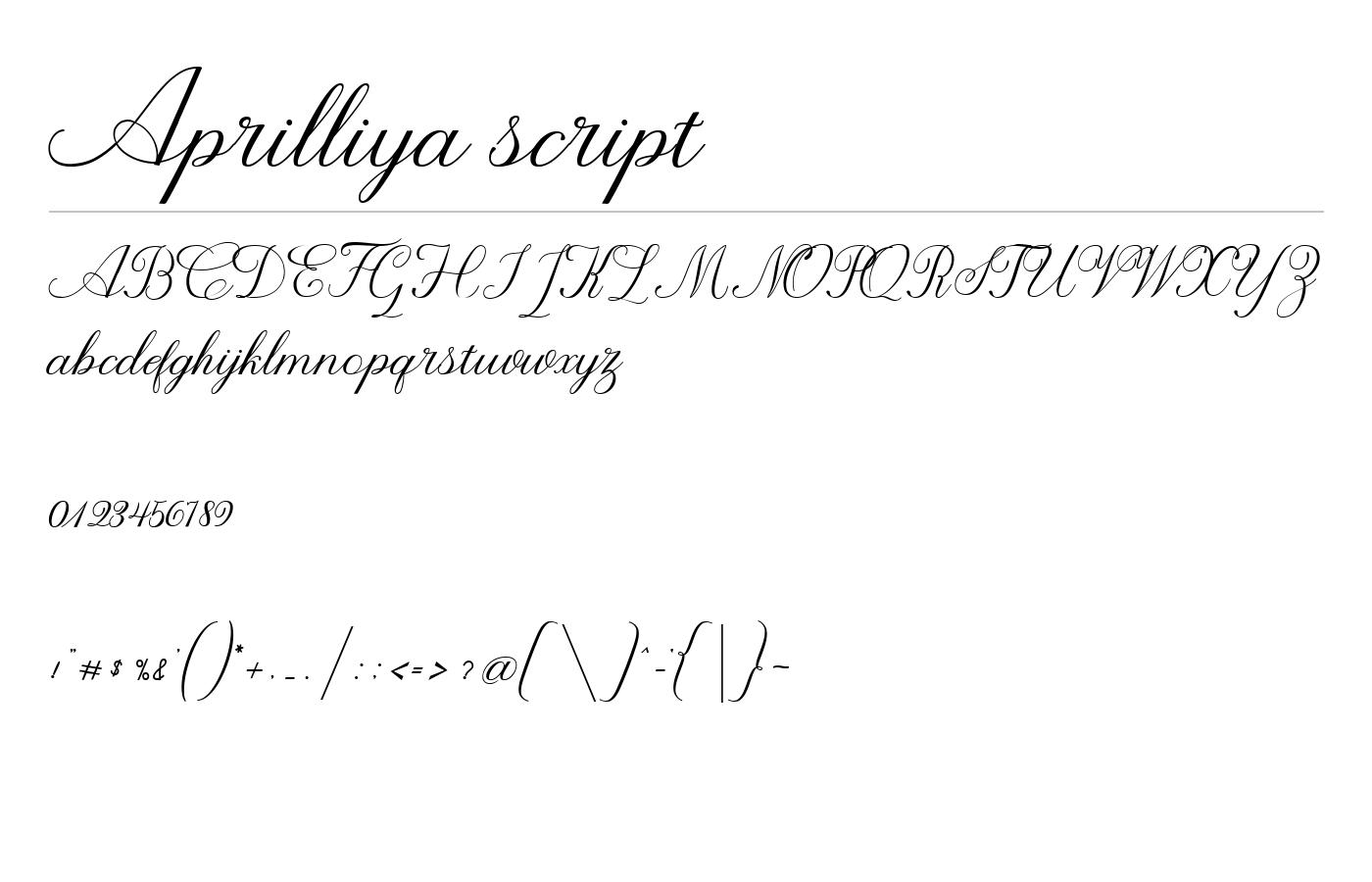
Aprilliya Script is an elegant and refined script font characterized by its delicate, flowing strokes and high contrast between thick and thin lines. Its graceful letterforms and smooth connections give it a sophisticated yet approachable feel, making it ideal for luxury branding, wedding invitations, and stylish editorial designs. This font shines in contexts that call for a personal, artistic touch with a touch of classic charm.
Aprilliya script Font
About Aprilliya script Font
| Font family | Aprilliya script Font |
| Designer | Reza Haitami |